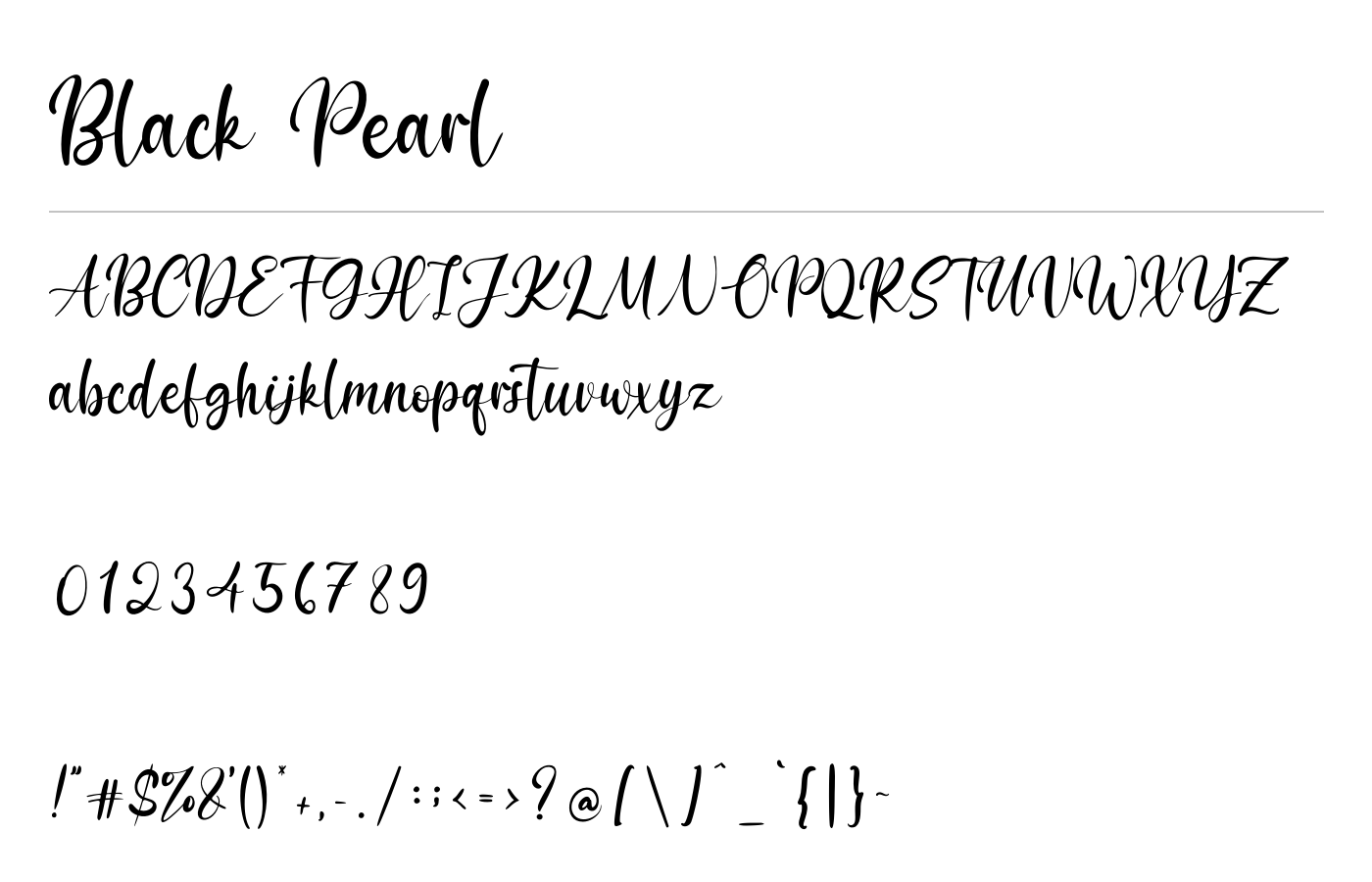
Black Pearl is a stylish script font with a flowing, handwritten feel that combines elegance with a touch of playfulness. Its medium weight and delicate, slightly curved strokes create a graceful appearance, making it ideal for invitations, branding, or any design needing a personal, artistic flair. This font works beautifully in projects that seek a warm, sophisticated, yet approachable style.
Black Pearl Font
About Black Pearl Font
| Font family | Black Pearl Font |
| Designer | Typeface©(Kong Font).2020 |